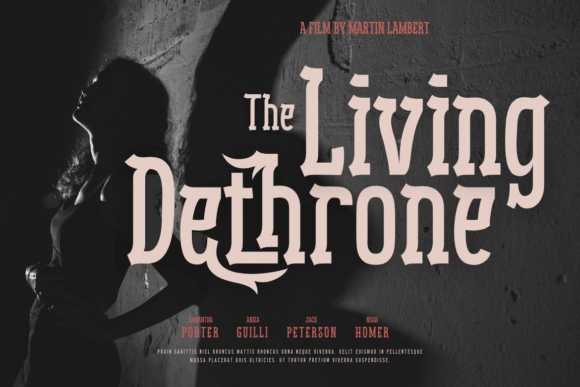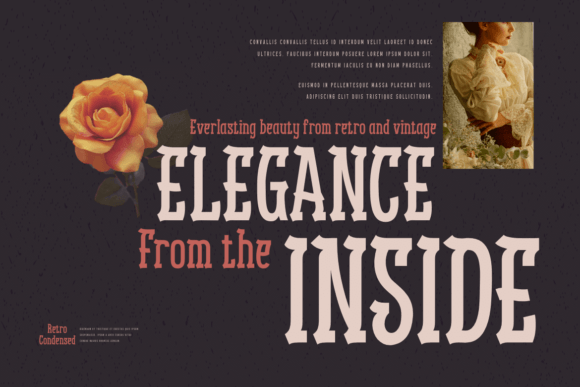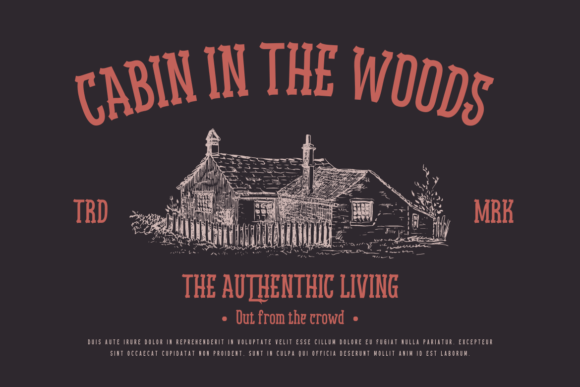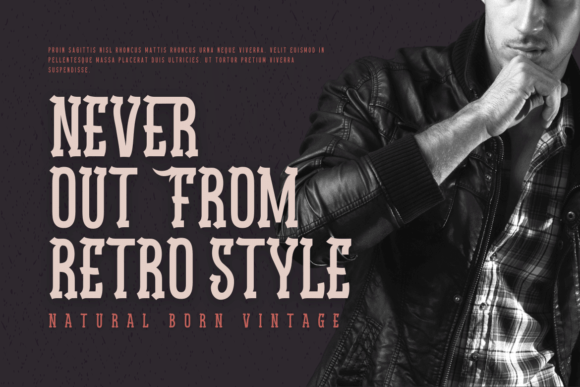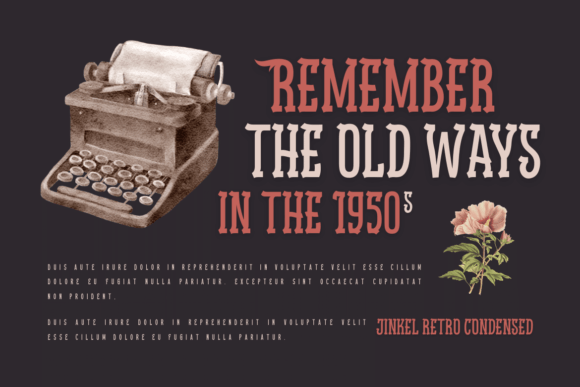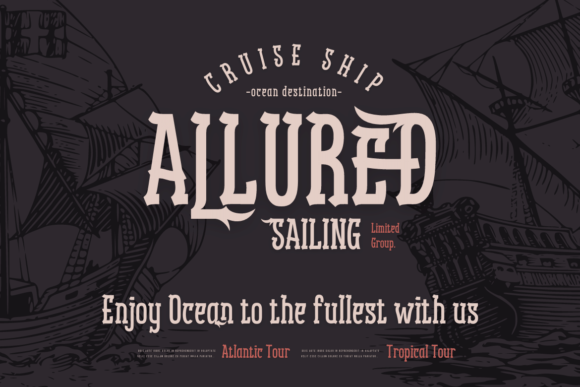
Introduction to Jinkel Font
Introducing Jinkel, the perfect font for any design project requiring a retro condensed style.
This font features a unique serif design on each end of the letters, providing a distinctive touch to your designs Jinkel is perfect for titles, headers, logos, and other creative designs that require a touch of vintage inspiration.